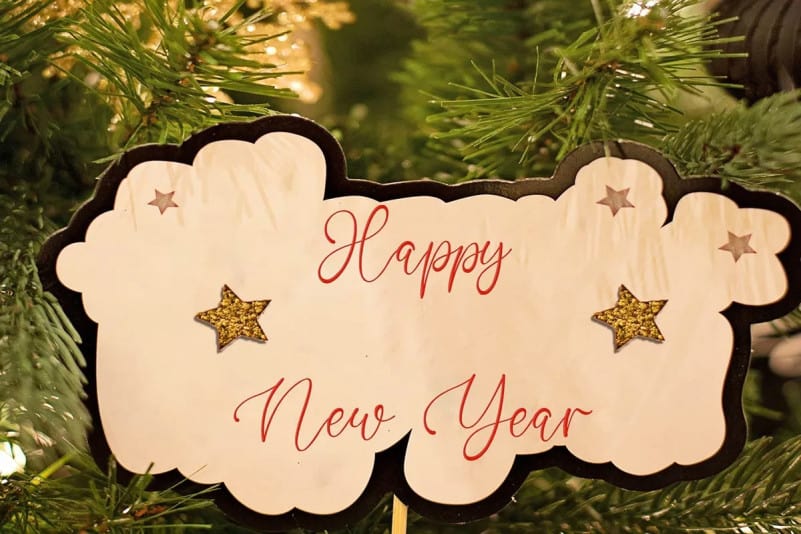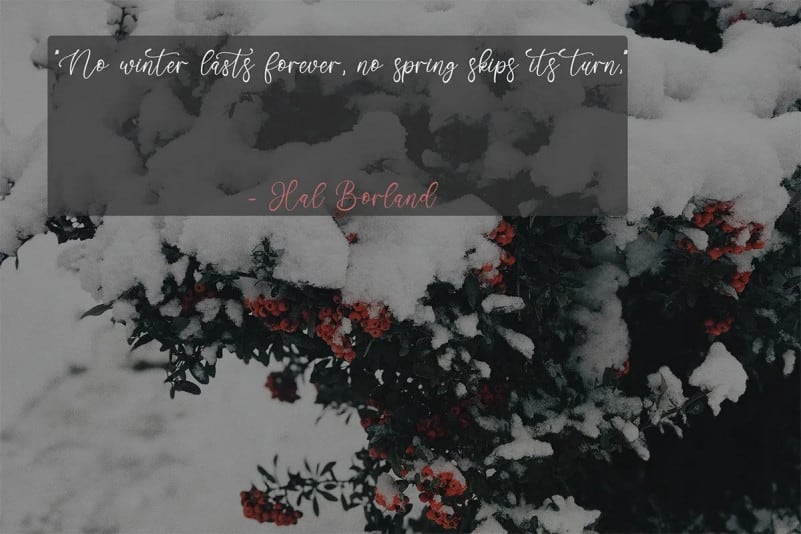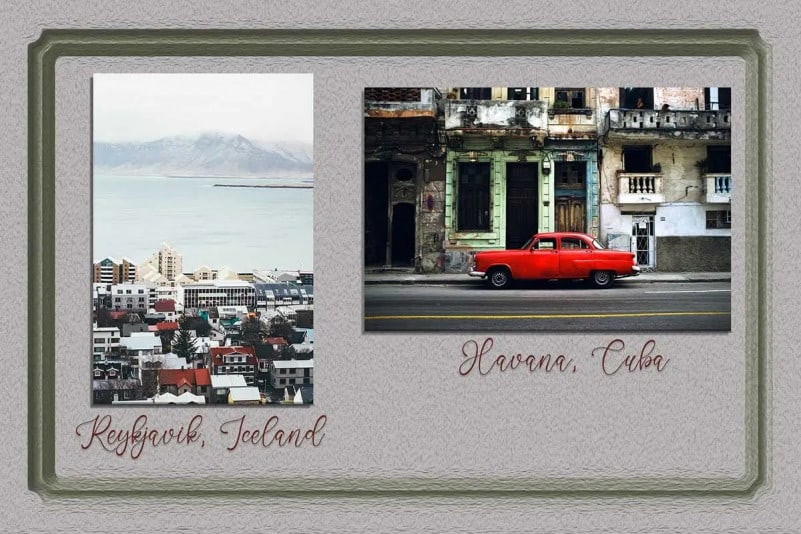
One Jannuary Calligraphy Font is a delicate, elegant, and flowing handwritten font. It’s a gorgeous and lovely script font created by fontkong. This fantastic is best suited for headlines of all sizes, as well as for blocks of text that have both maximum and minimum variations. Whether it’s for web, print, moving images, or anything else – A Sweater Font will look spectacular.
One Jannuary
One Jannuary Italic